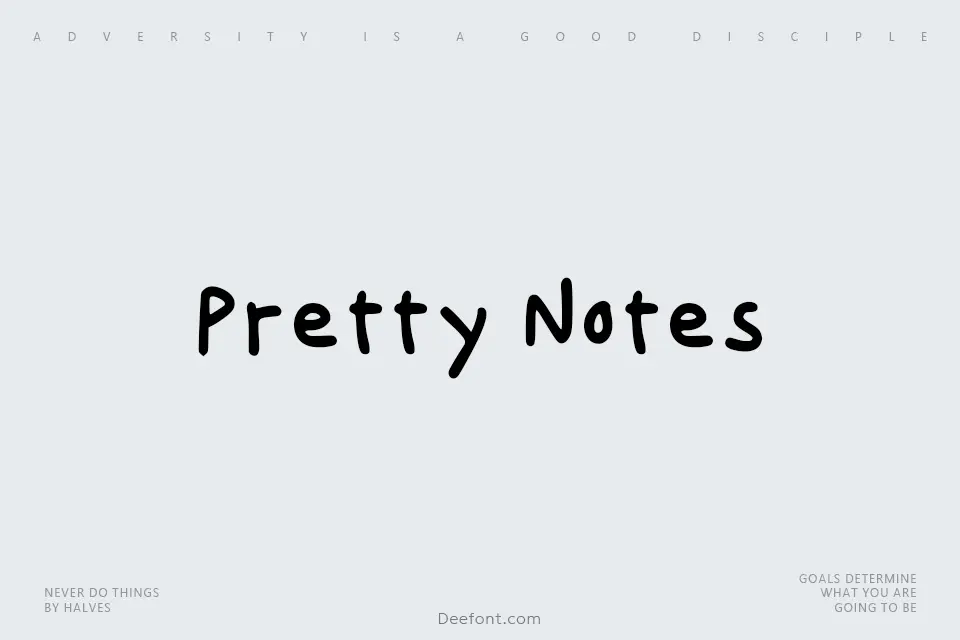
Pretty Notes Font
Pretty Notes is a casual and charming handwritten script font that captures the natural feel of pen-on-paper writing. With its slightly imperfect letterforms and friendly character, this typeface brings warmth and authenticity to any design project. The font features soft, flowing strokes that evoke a personal, handwritten touch, making it ideal for invitations, greeting cards, posters, social media graphics, and creative projects seeking to convey a human, approachable aesthetic. Its playful yet legible design works beautifully for titles, headlines, and decorative applications where charm and personality are valued over corporate formality.